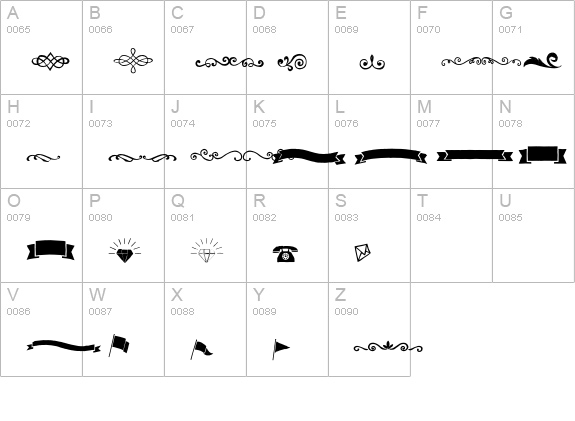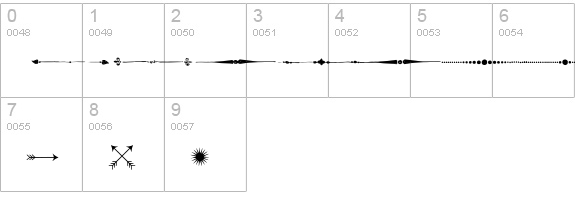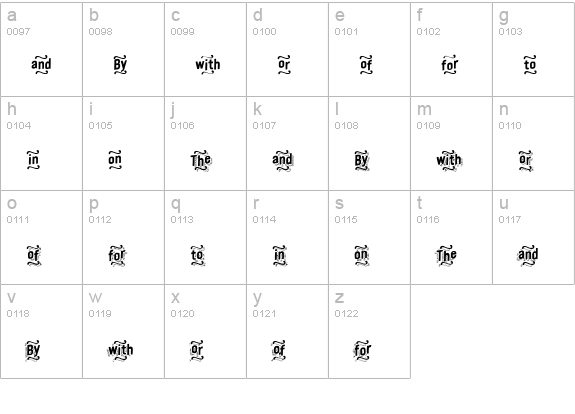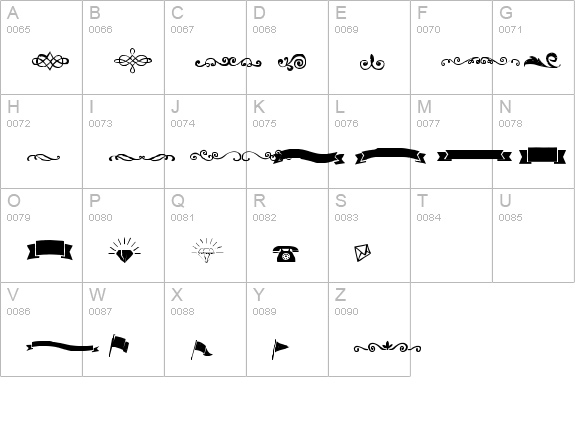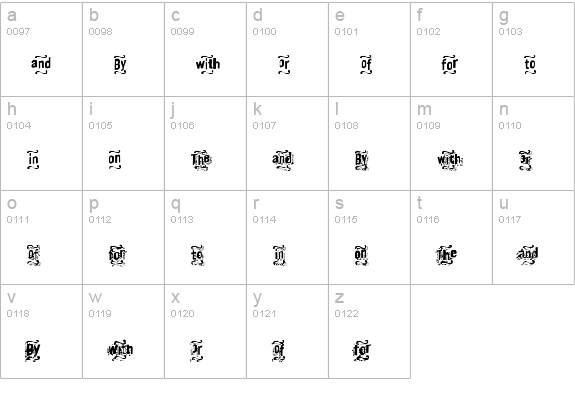
Festivo LC Extras Font Details
Festivo LC Extras font is a versatile and whimsical typeface that will add a touch of playfulness to any design project. With a wide range of decorative elements such as ornaments, borders, and icons, this font is perfect for creating eye-catching designs that stand out. Whether you're working on invitations, posters, or branding materials, Festivo LC Extras has everything you need to take your designs to the next level. The best part? Festivo LC Extras font is completely free to download at FontsMarket.com. That's right, you can easily access this unique and charming font without any cost. So why wait? Add Festivo LC Extras to your font collection today and let your creativity shine!